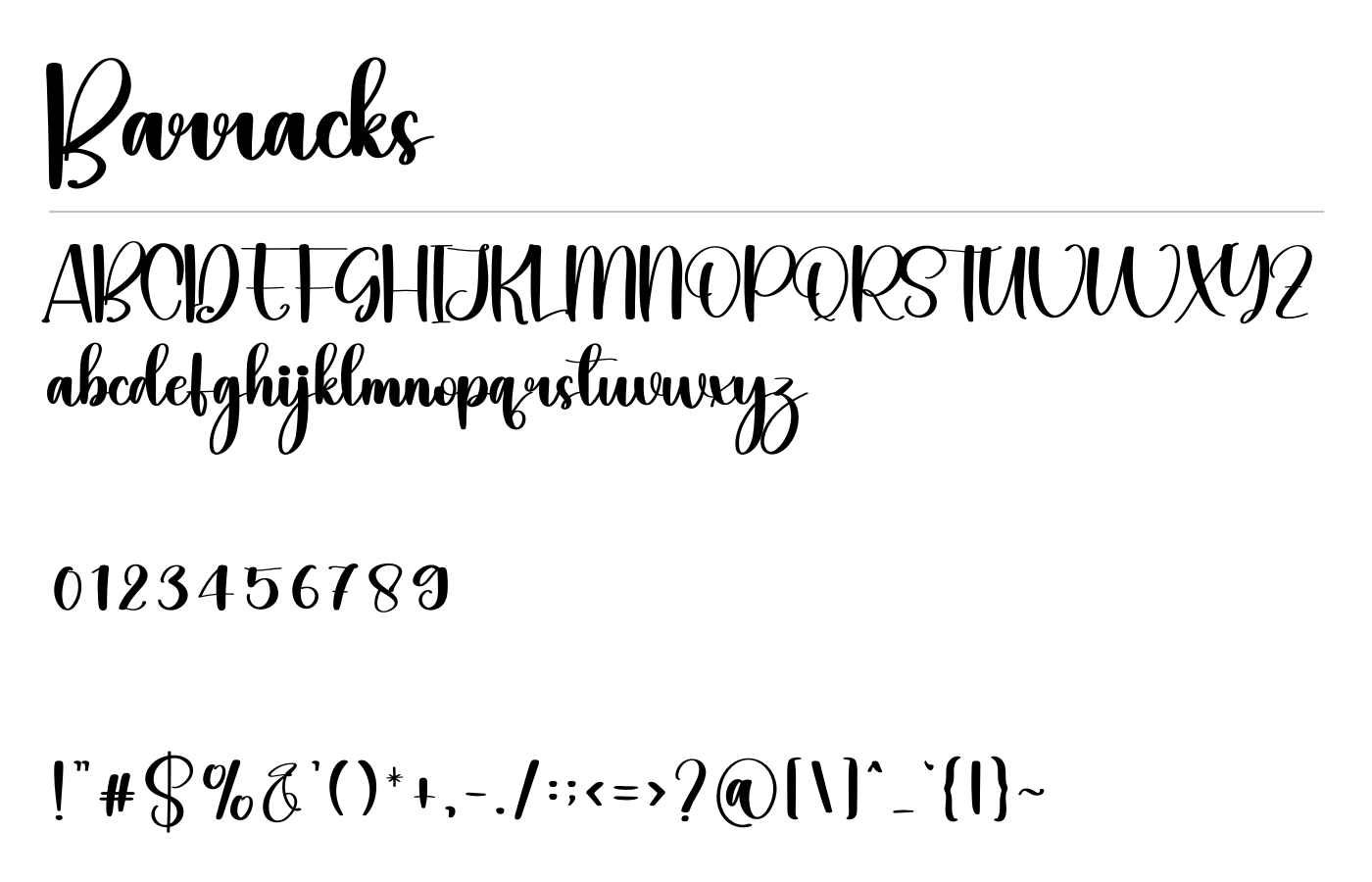
Barracks Font is a lively and elegant script typeface with a hand-lettered feel, featuring smooth, flowing strokes and varying line thickness that give it a charming and playful personality. Its tall, slender letterforms and decorative swashes make it perfect for feminine branding, invitations, and creative projects that need a warm, personal touch. This font works beautifully in headlines and logos where a stylish, approachable look is desired.
Barracks Font